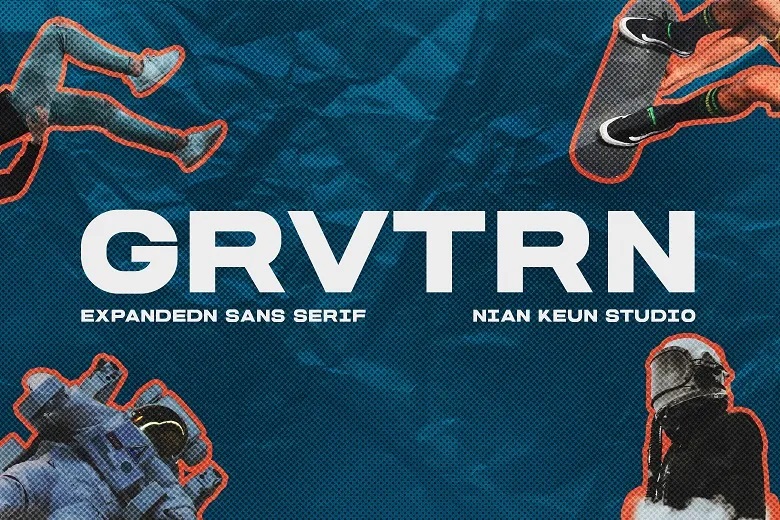
Grvtrn an extended sans serif font for today’s context, minimalistic in design but with the flash of modernity. As inspired by the design trends of 2024, GRVTRN is quite simple and unsophisticated, clean and simple with huge, broad and bold letters. This font is all about assertiveness while at the same time being simplistic in its approach.
Grvtrn Sans Serif Font